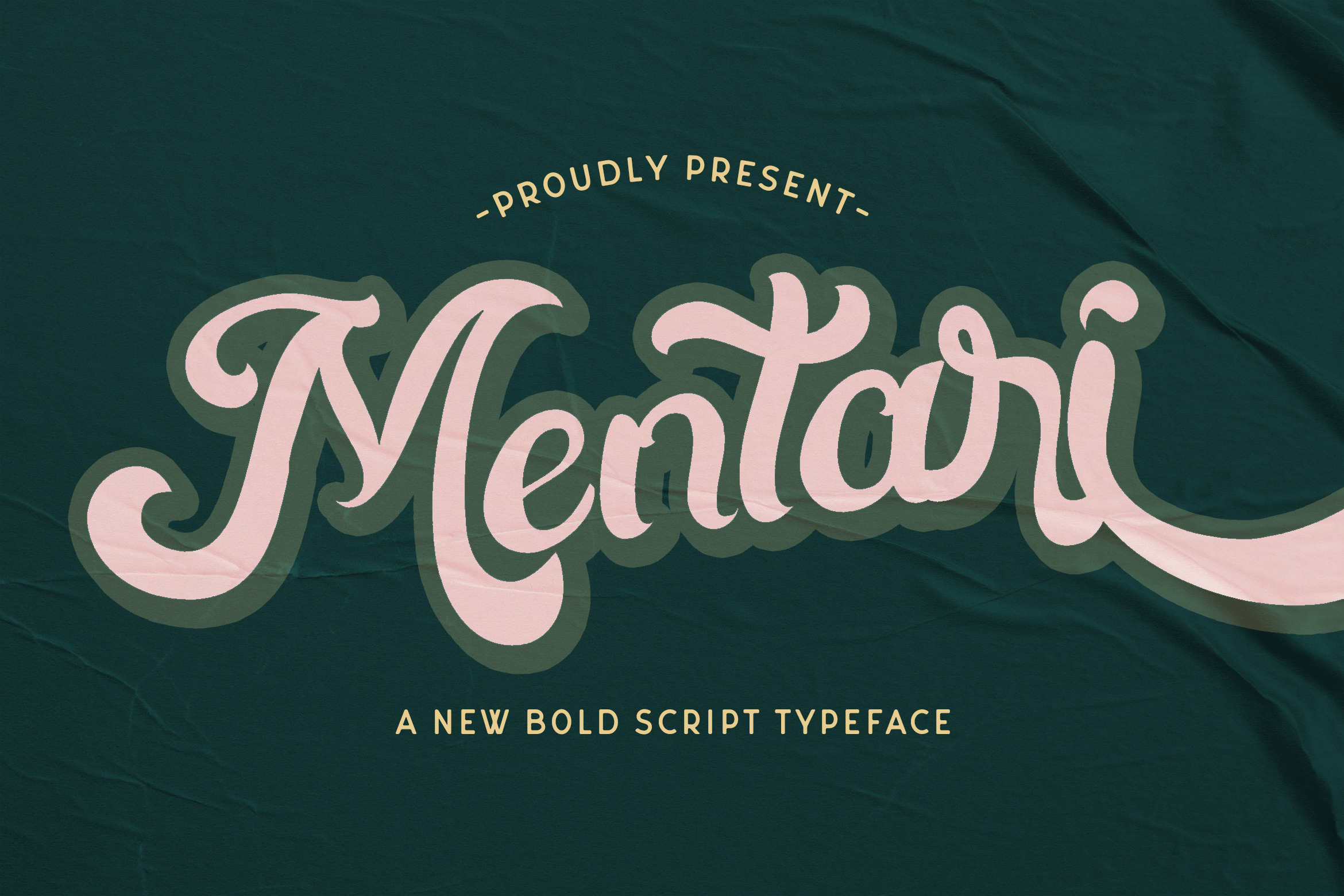
Mentari - Bold Script Font
Introducing Mentari - Bold Script Font
Mentari is a cute and bold script font. It’s curved and rounded in every single touch, and has a vintage and retro style that makes it perfect for branding, stationery, quotes and much more!